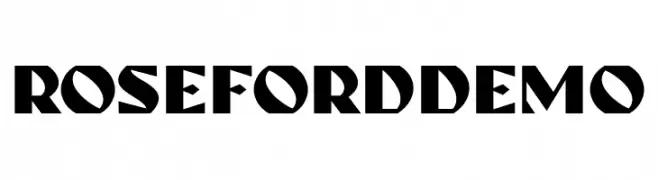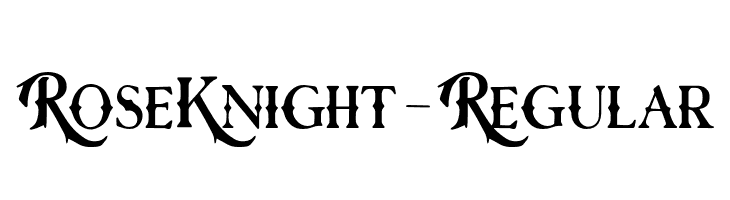
A bold, angular font with a modern, geometric style.
A dynamic and elegant script font with flowing, cursive letterforms and intricate flourishes.
A dynamic and flowing script font with elegant, cursive letterforms.
Ornamental floral dingbat font with detailed rose motifs.
A bold, elegant serif font with high contrast and refined details.
Handwritten, playful sans-serif with tall, narrow letters.
A modern, elegant script font with flowing, cursive letters and graceful curves.
A whimsical, cursive font with elegant loops and swirls.
An elegant script font with intricate loops and swirls, reminiscent of calligraphic handwriting.
A whimsical, hand-drawn font with intricate detailing and a playful style.